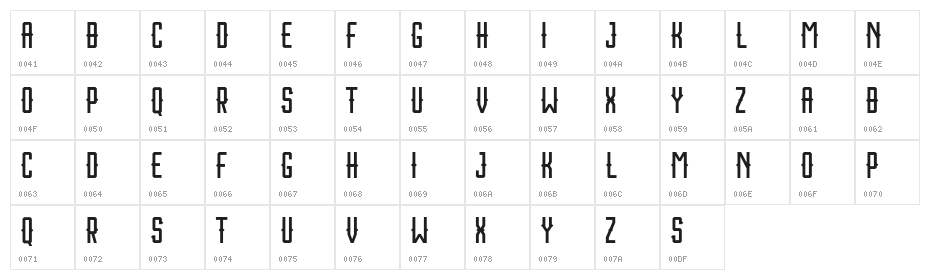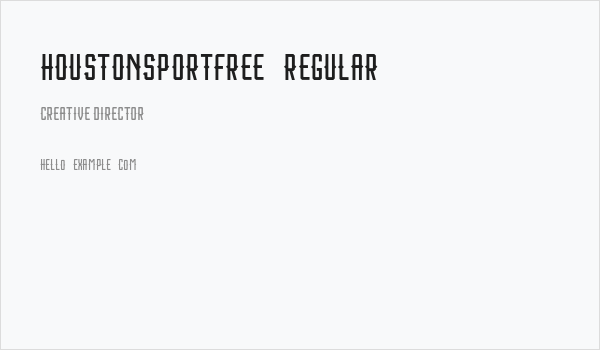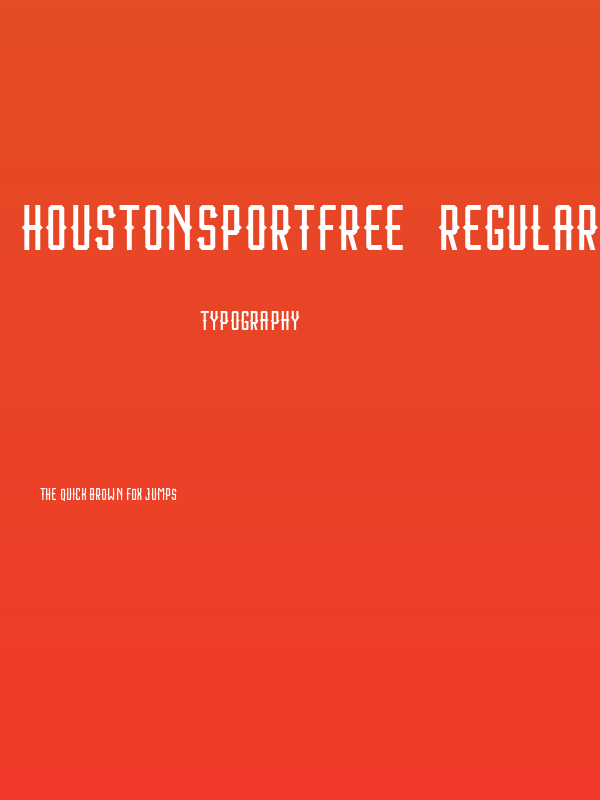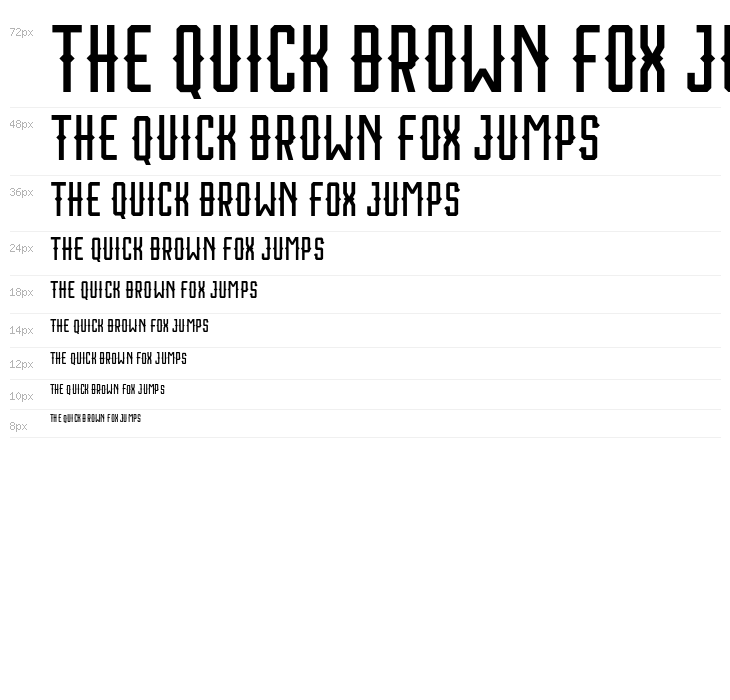
HoustonSportFree-Regular Font
HoustonSportFree-Regular Description
This font features a bold and geometric design with sharp, angular edges and a strong vertical emphasis. The characters are uniformly structured, giving it a consistent and cohesive appearance. The style is reminiscent of sports or team branding, with a modern and assertive look. The uppercase letters are particularly striking, with a uniform height and width that enhances readability and impact. The font's design is both decorative and functional, making it suitable for various applications where a bold statement is needed.
| Proposed Projects | Ideal for sports team logos, athletic apparel branding, posters, and event signage. |